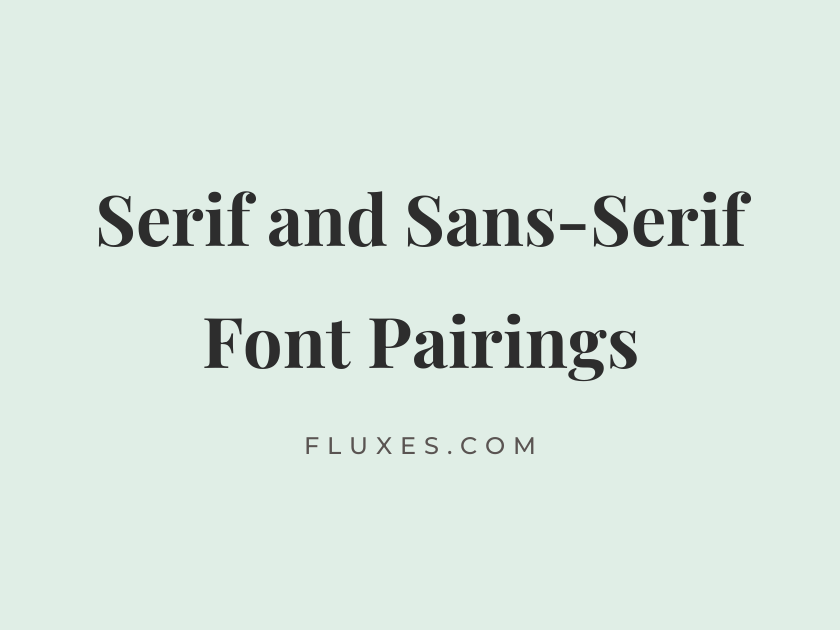
10 Best Serif and Sans-Serif Font Pairings
Pairing a serif with a sans-serif is the most reliable way to build contrast into a layout while keeping things legible and warm. The trick is matching proportions and mood rather than just grabbing any two fonts; the combinations below are tested Google Fonts pairings that hold up in real projects, from editorial sites to product pages.
1. Playfair Display + Open Sans
Elegant Editorial Headlines
Clean, neutral body text that lets the display face carry the drama.
Playfair Display’s high-contrast strokes and dramatic thin serifs need a body font that stays out of the way, and Open Sans’s even, humanist letterforms do exactly that. This pairing suits fashion, beauty, and lifestyle sites where the headline needs to feel couture but the paragraphs still need to read comfortably on a screen.
2. Merriweather + Nunito Sans
Readable Warmth for Long Text
A rounded, friendly sans-serif that softens the sturdiness of the serif above.
Merriweather was drawn specifically for screens, with sturdy serifs and generous curves, and Nunito Sans echoes that roundness in a sans-serif skeleton. The shared warmth makes this a dependable choice for blogs and content-heavy sites that want a serif and sans-serif pairing that never feels cold.
3. Libre Baskerville + Work Sans
Classic Book-Style Headings
A versatile grotesque that feels contemporary next to a traditional serif.
Libre Baskerville carries the calm authority of old-style book typefaces, and setting it against Work Sans, a grotesque with slightly squared curves, gives the page a print-meets-web feel. This works well for long-form journalism, essays, or any site aiming for a literary tone without looking dated.
4. Cormorant Garamond + Karla
Refined, Airy Display Type
A grounded, low-contrast sans that keeps delicate serifs from feeling fragile.
Cormorant Garamond is light and refined almost to the point of fragility, so it benefits from a body font with a bit more weight and stability underneath it. Karla’s slightly quirky details and even strokes provide that anchor, making this pair a good fit for boutique brands, invitations, and poetry or art sites.
5. Lora + Mulish
Balanced Serif for Any Brand
A neutral, well-spaced sans-serif that supports readability at every size.
Lora’s moderate contrast and brushed curves sit comfortably between formal and casual, which is why it pairs so easily with almost any clean sans-serif, and Mulish in particular offers generous spacing that keeps paragraphs breathable. This is a safe, versatile combination for business sites, portfolios, and documentation.
6. Bitter + Rubik
Sturdy Slab Serif Headlines
Slightly rounded corners that echo the slab's confident, blocky presence.
Bitter’s slab serifs give headlines real weight and presence, and Rubik’s subtly rounded terminals pick up on that same confident, blocky character without competing for attention. The combination reads as approachable but substantial, good for SaaS marketing pages and product landing pages.
7. PT Serif + PT Sans
Practical, No-Fuss Serif Headings
Designed as a matching family, so proportions and spacing align perfectly.
PT Serif and PT Sans were designed together as a superfamily, so their x-heights, stroke weights, and rhythm align by construction rather than by luck. This is the pairing to reach for when you want guaranteed harmony with minimal second-guessing, especially in government, education, or reference-style sites.
8. Crimson Pro + Inter
Scholarly Serif, Modern Feel
A highly legible, screen-optimized sans that grounds a classic text serif.
Crimson Pro carries an academic, book-like character that benefits from a thoroughly modern, screen-tested companion, and Inter’s tall x-height and tight spacing were built exactly for that job. Together they suit research publications, newsletters, and app documentation where credibility and clarity both matter.
9. Abril Fatface + Roboto
Bold Display Statement Type
A neutral workhorse sans that steps back and lets the display font shine.
Abril Fatface is unapologetically heavy and theatrical, so it needs a body font with no personality of its own to compete with; Roboto’s mechanical neutrality is exactly that kind of backdrop. This pairing is common in poster-style landing pages, event promotion, and magazine covers.
10. Zilla Slab + Barlow
Contemporary Slab Serif Pairing
A condensed-adjacent grotesque with a slightly industrial, efficient feel.
Zilla Slab’s chunky serifs and low contrast give it an engineered, contemporary edge, and Barlow’s slightly narrow, efficient forms match that industrial mood without turning cold. This combination works nicely for tech products, engineering blogs, and portfolio sites that want to feel current and unfussy.
Tips for combining serif and sans-serif fonts
Match x-heights and overall weight before worrying about style; a light serif paired with a heavy sans will always feel unbalanced.
Use the serif where warmth or tradition matters and the sans-serif where clarity at small sizes is essential, such as captions or UI labels.
When in doubt, test both fonts at your actual body copy size, since many pairings that look good in a mockup fall apart in real paragraphs.